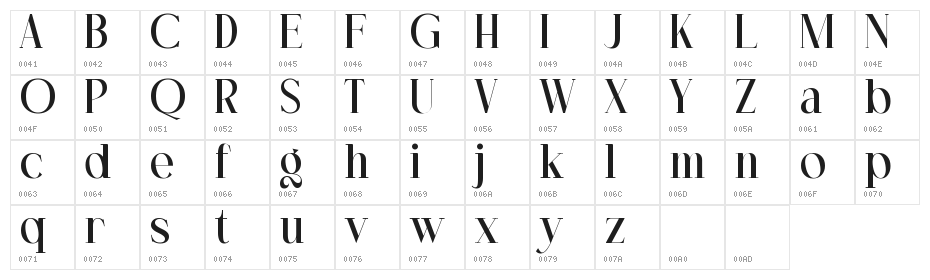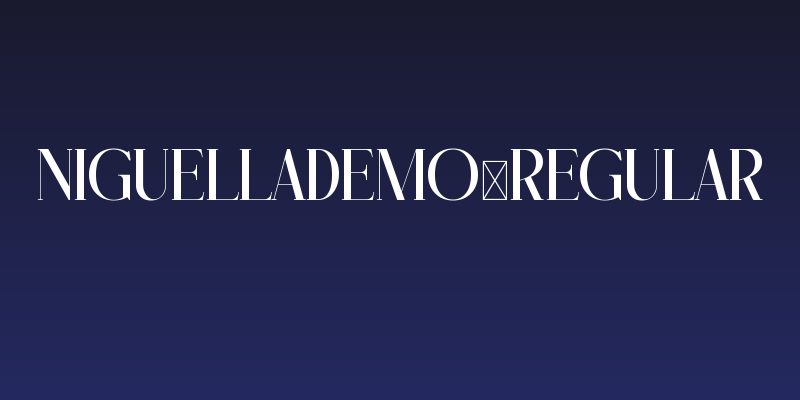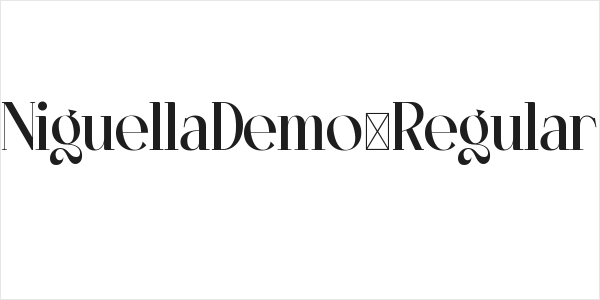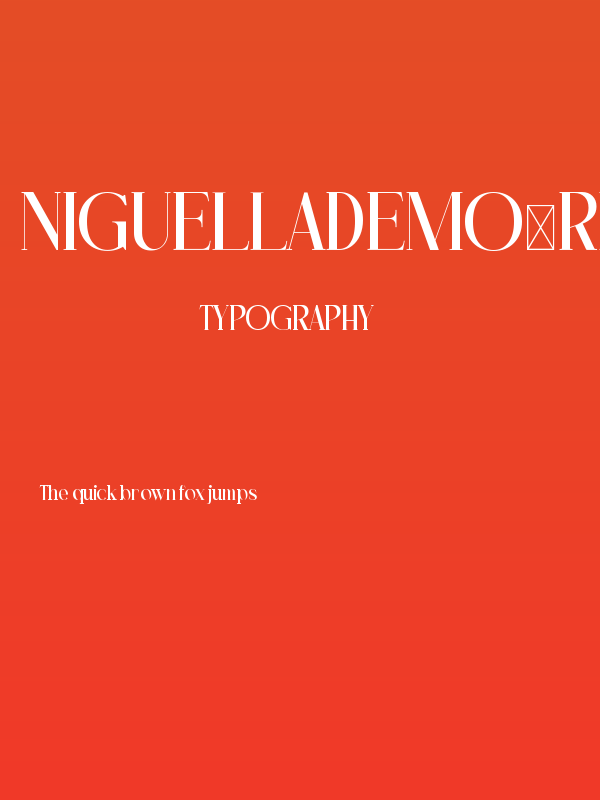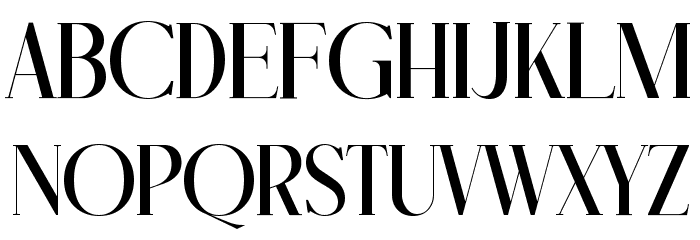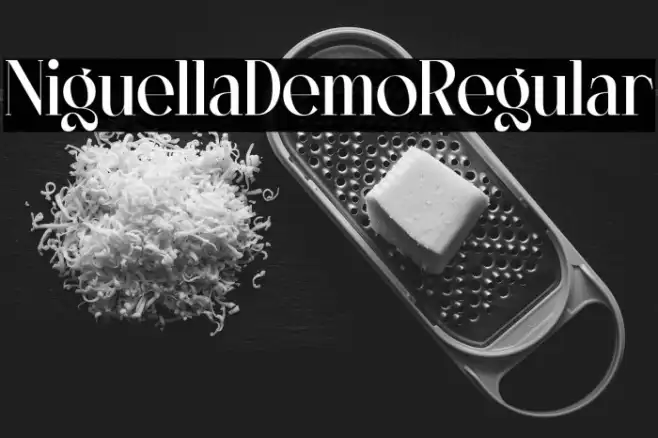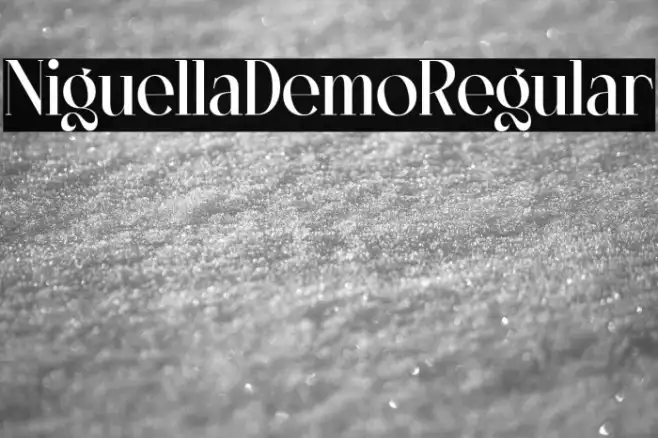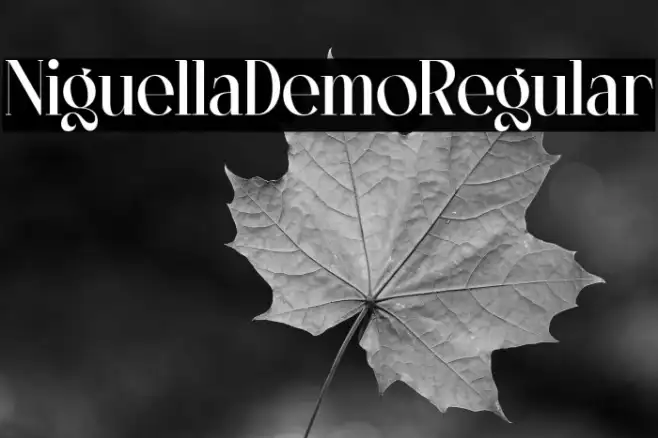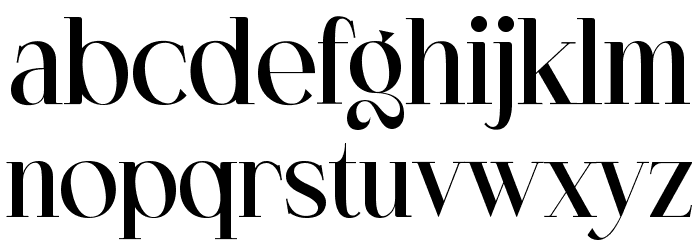
NiguellaDemo-Regular Font
NiguellaDemo-Regular Description
This font exhibits a sophisticated and elegant style, characterized by its high contrast between thick and thin strokes. The serifs are sharp and pronounced, adding a touch of classic refinement. The uppercase letters are tall and commanding, while the lowercase letters maintain a graceful flow with unique features like the distinctive tail on the lowercase 'g'. The overall design is both modern and timeless, making it suitable for a variety of high-end applications. The spacing between characters is balanced, ensuring readability while maintaining an aesthetic appeal.